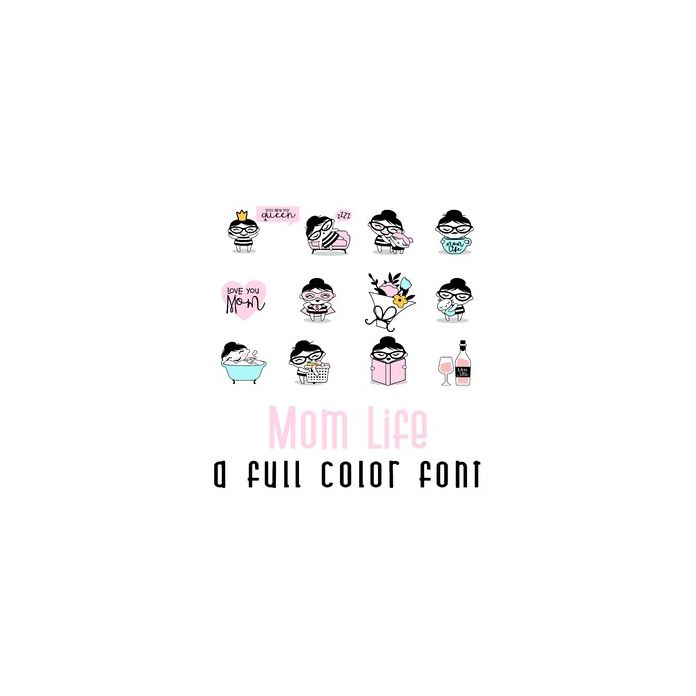
This adorable full-color doodlebat font features 26 simple style moms living their best mom life. Perfect for cards, crafts, gifts, planner stickers, scrapbook pages, decor, classrooms, Mother's Day and more!